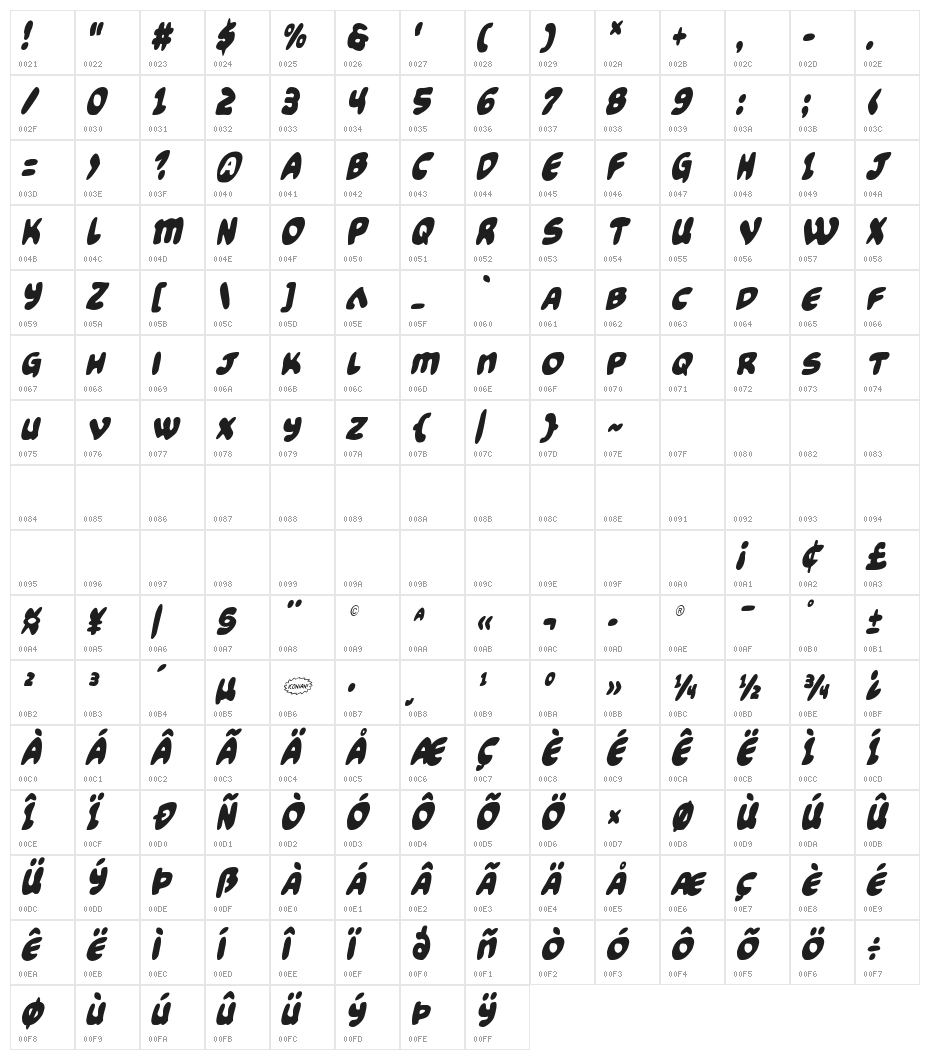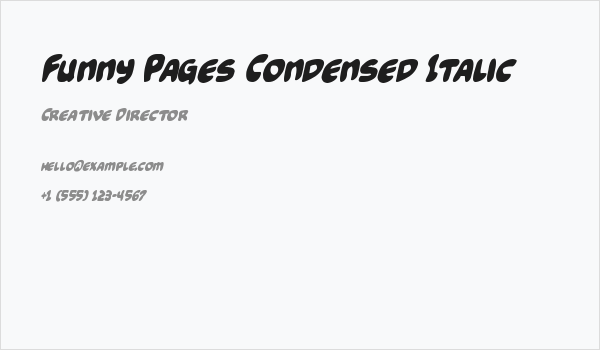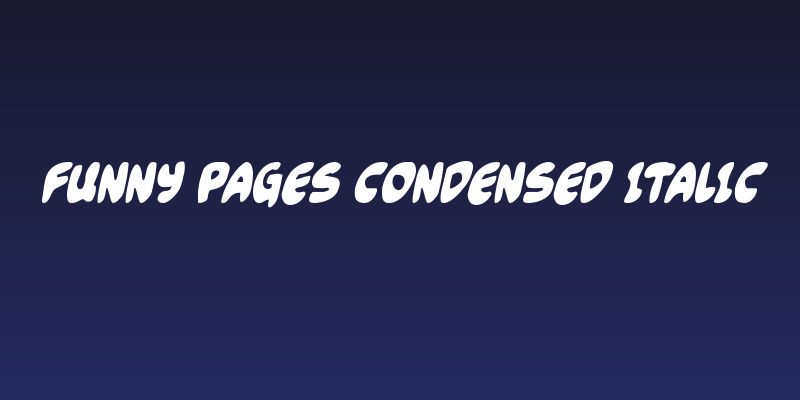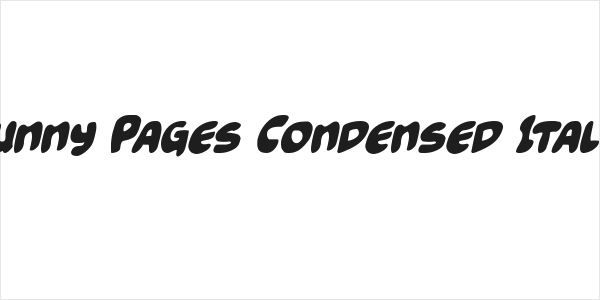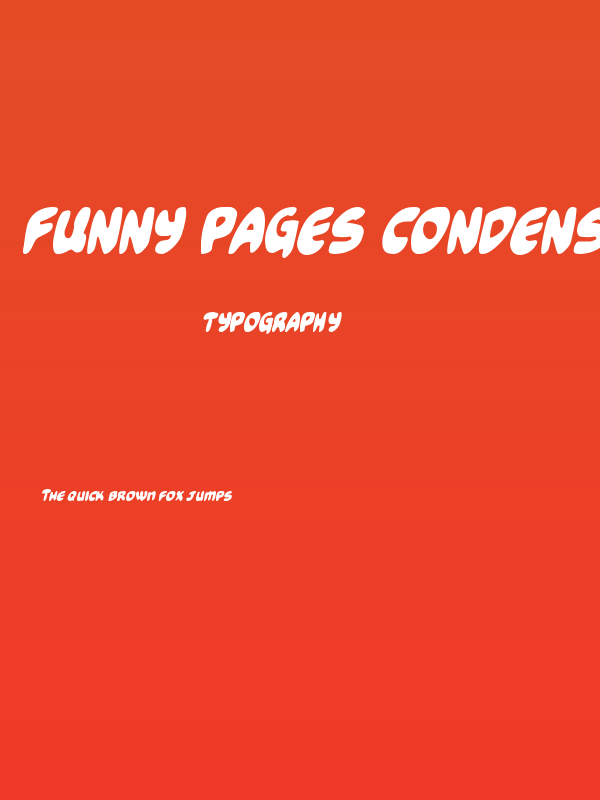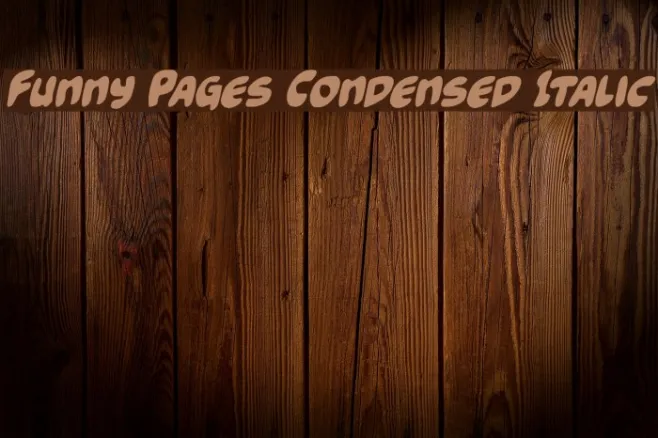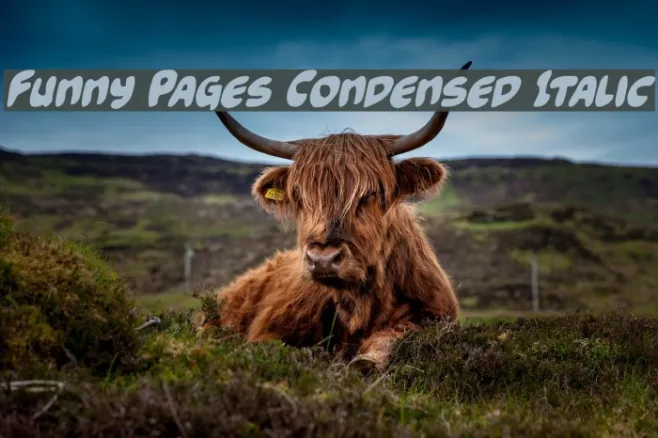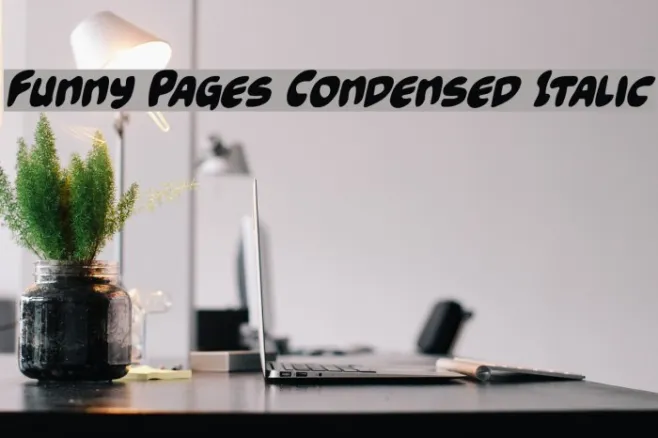
Funny Pages Condensed Italic Font
Funny Pages Condensed Italic Description
This playful and bold font features a condensed and italicized style, giving it a dynamic and energetic appearance. The characters are rounded and slightly slanted, creating a sense of movement and fun. The boldness of the strokes ensures high visibility, making it suitable for attention-grabbing designs. The font maintains a consistent thickness throughout, with minimal contrast in stroke width. Its whimsical and informal style makes it ideal for creative projects that require a touch of humor and personality.
| Proposed Projects | Perfect for comic books, children's books, playful branding, and posters. |